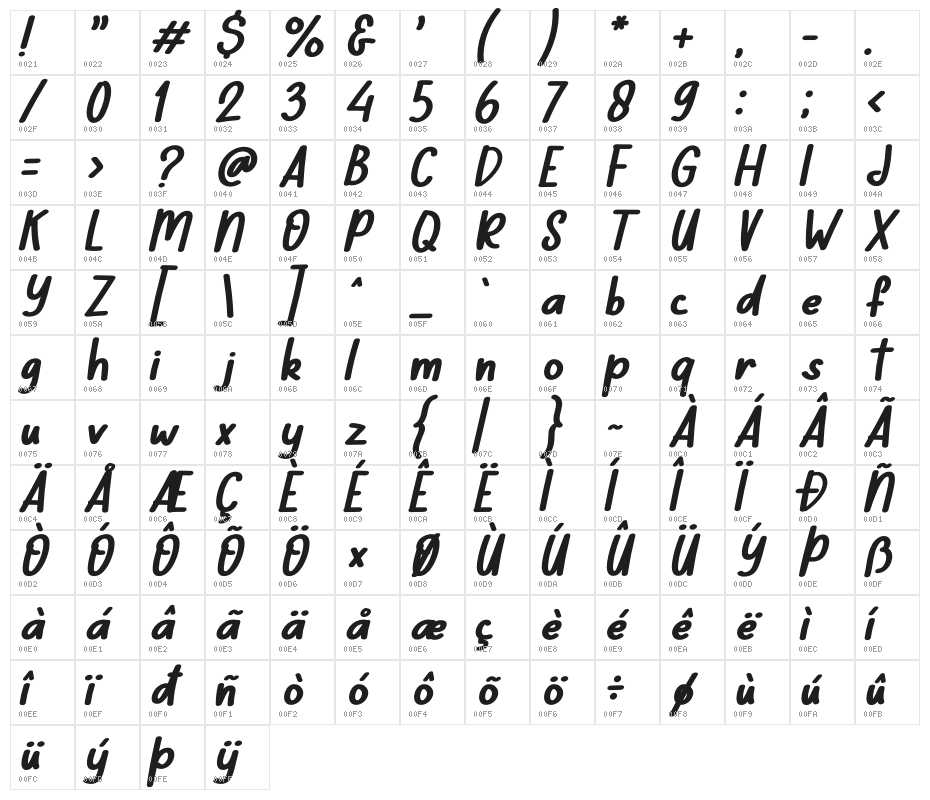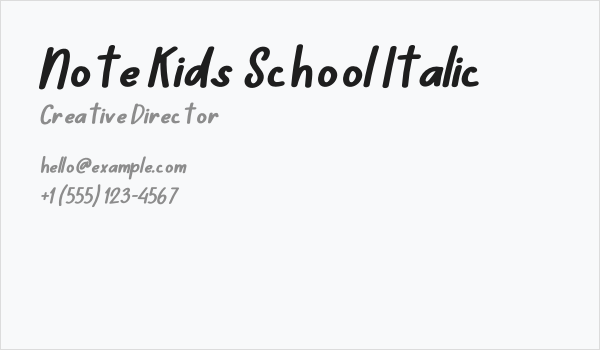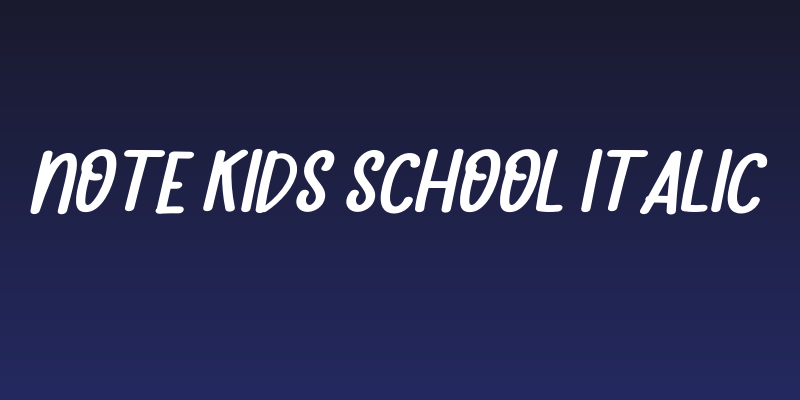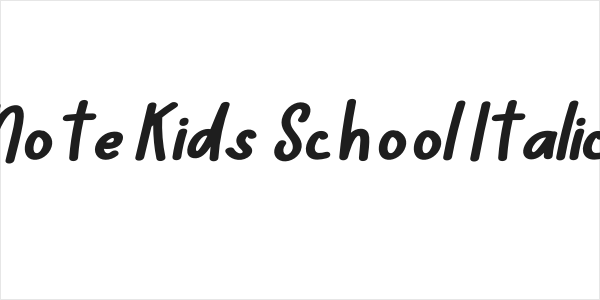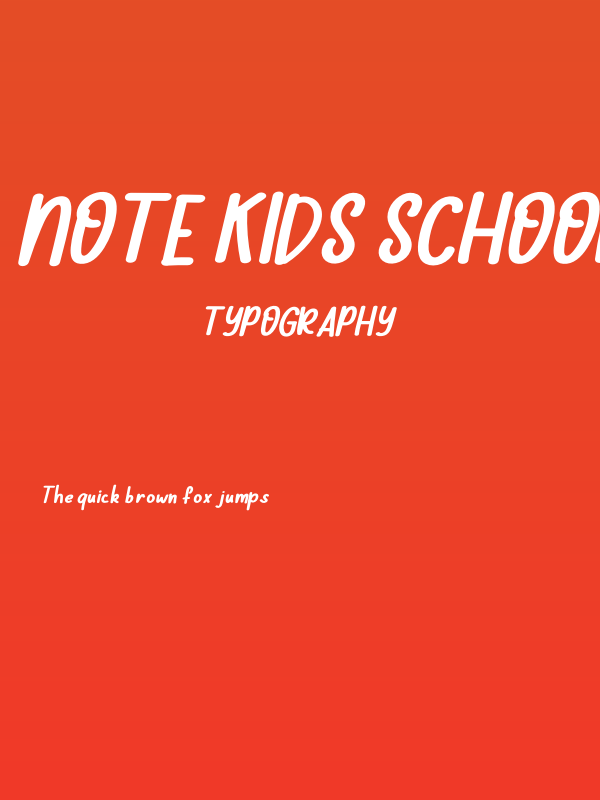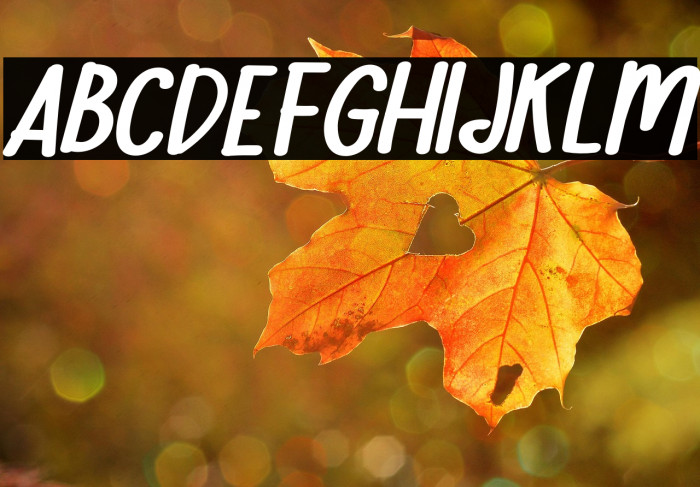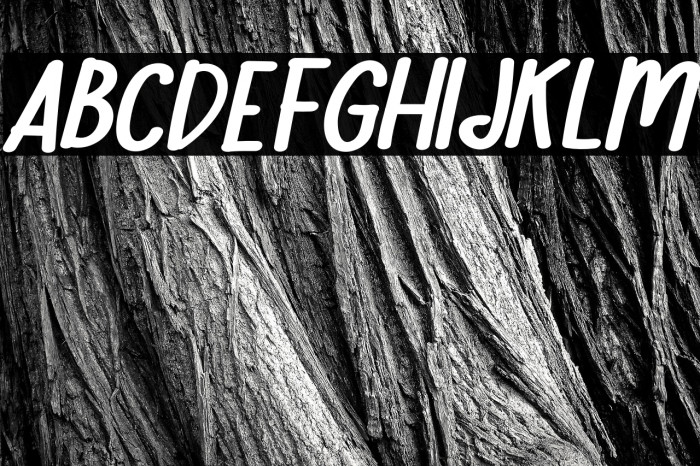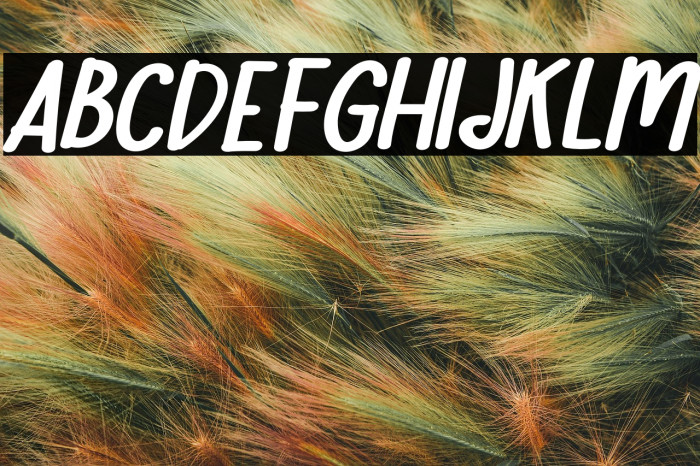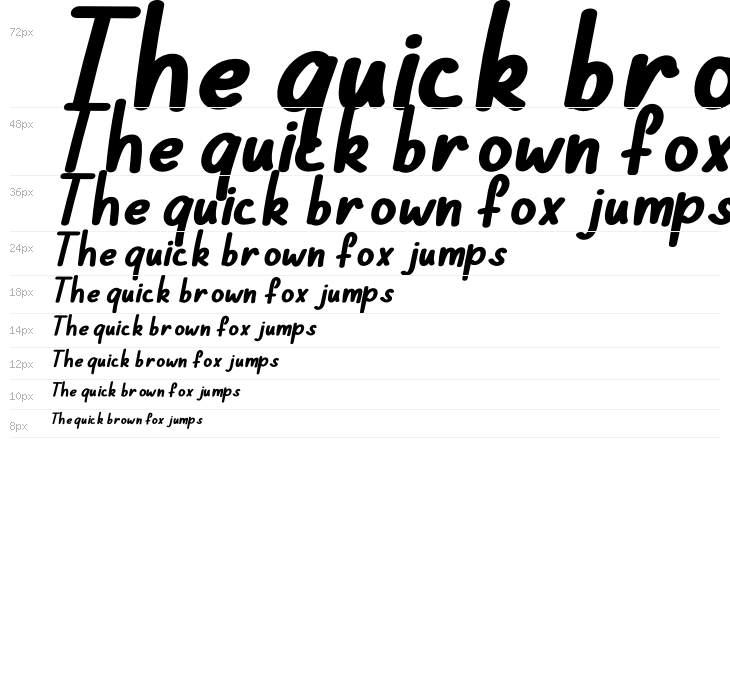
Note Kids School Italic Font
Note Kids School Italic Description
This playful and energetic font features a handwritten style with a slight slant, giving it an informal and friendly appearance. The letters are bold and rounded, with a consistent stroke width that adds to its approachable feel. The uppercase and lowercase characters maintain a cohesive look, while the numerals and special characters complement the overall design. This font's whimsical nature makes it ideal for projects aimed at children or for adding a touch of fun to any design.
| Overall Style | Playful, Informal |
| Use Case | Headlines, Logos, Children's materials |
| Proposed Projects | Ideal for children's books, school projects, playful branding, and greeting cards. |